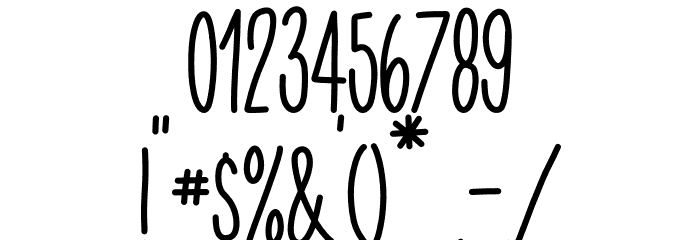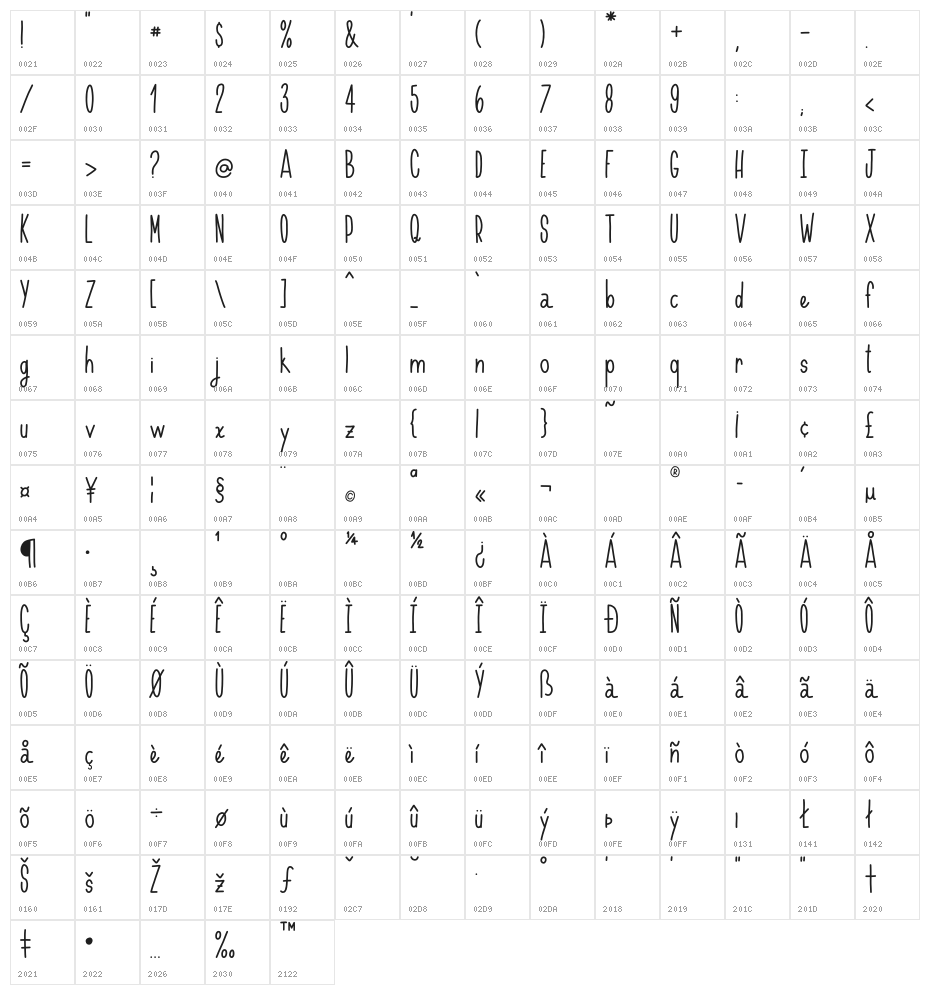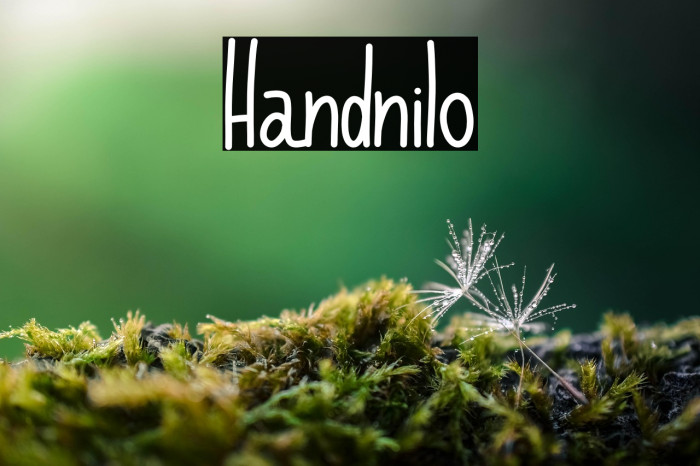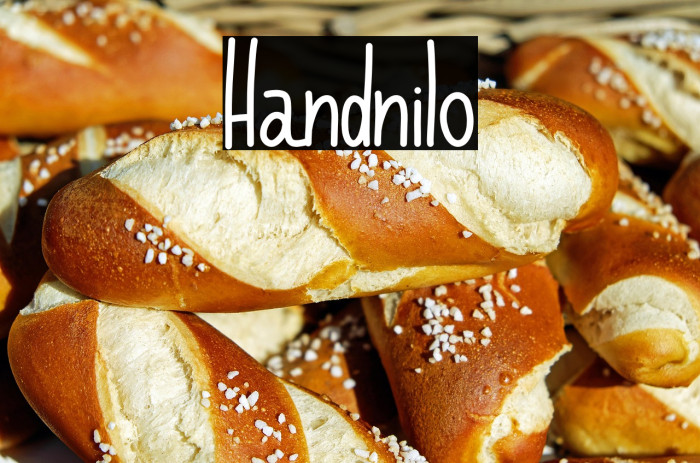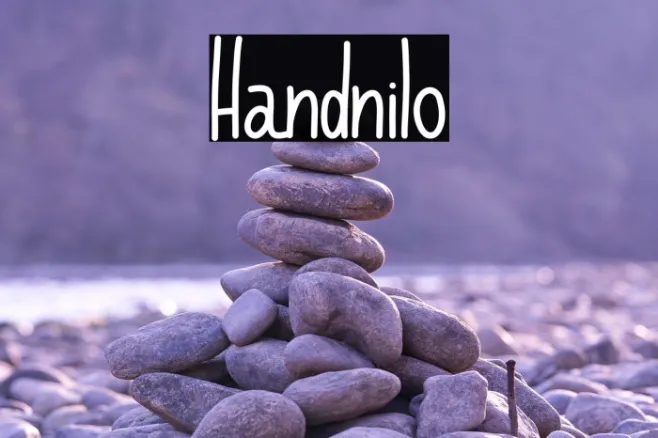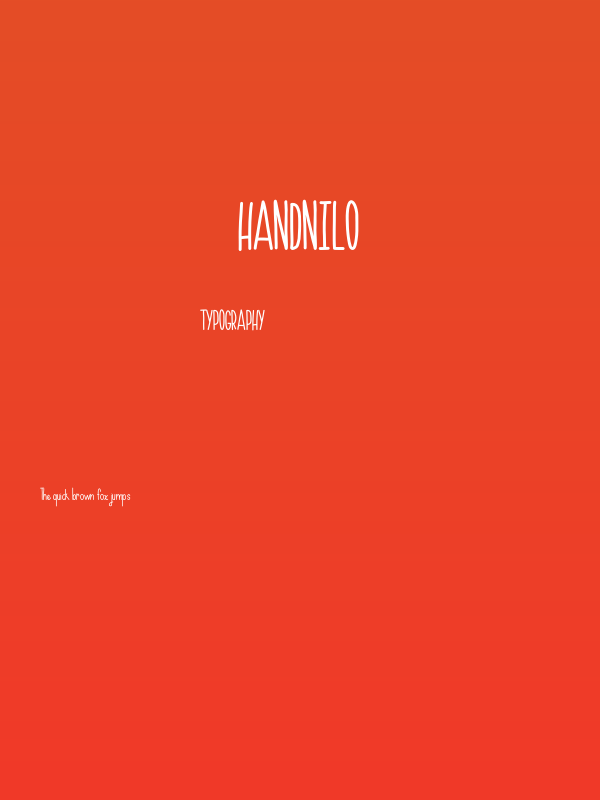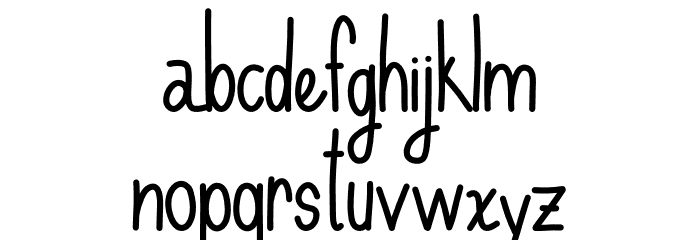
Handnilo Font
Handnilo Description
This font features a playful and casual handwritten style, characterized by its tall, narrow letters and slightly irregular strokes. The uppercase letters are bold and prominent, while the lowercase letters maintain a consistent flow with a touch of whimsy. Numbers and special characters are designed to match the overall aesthetic, adding to its versatility. The font's informal and friendly appearance makes it suitable for creative projects that require a personal touch.